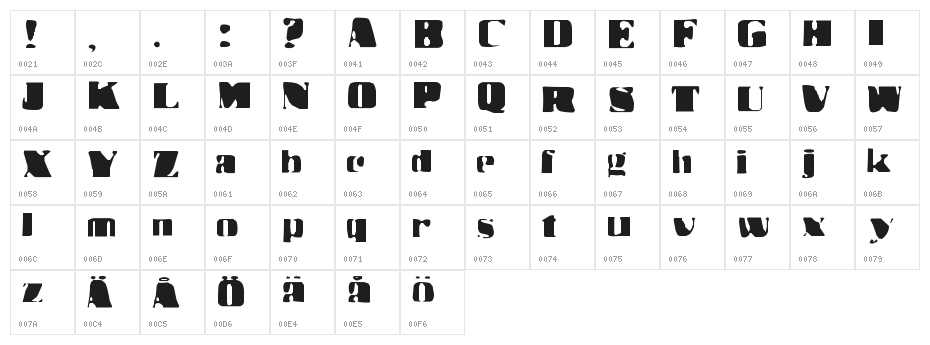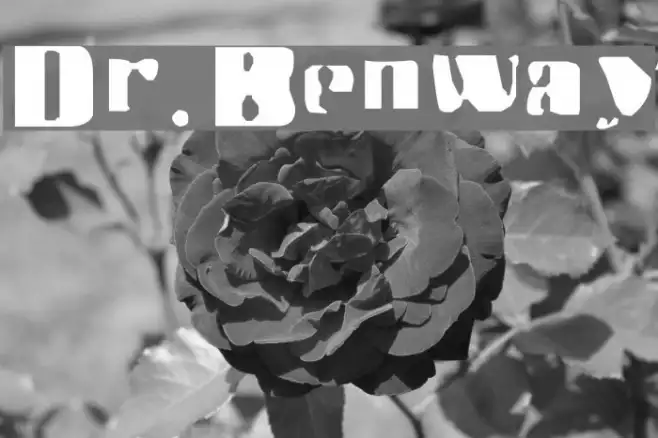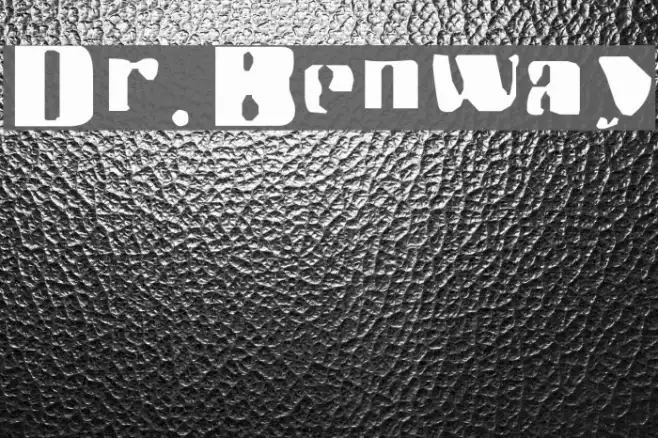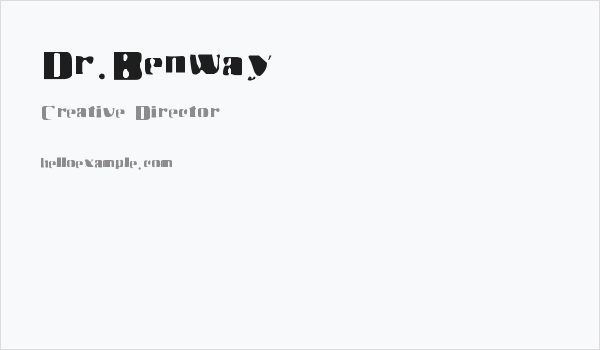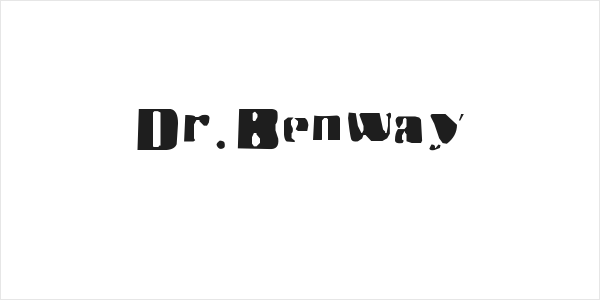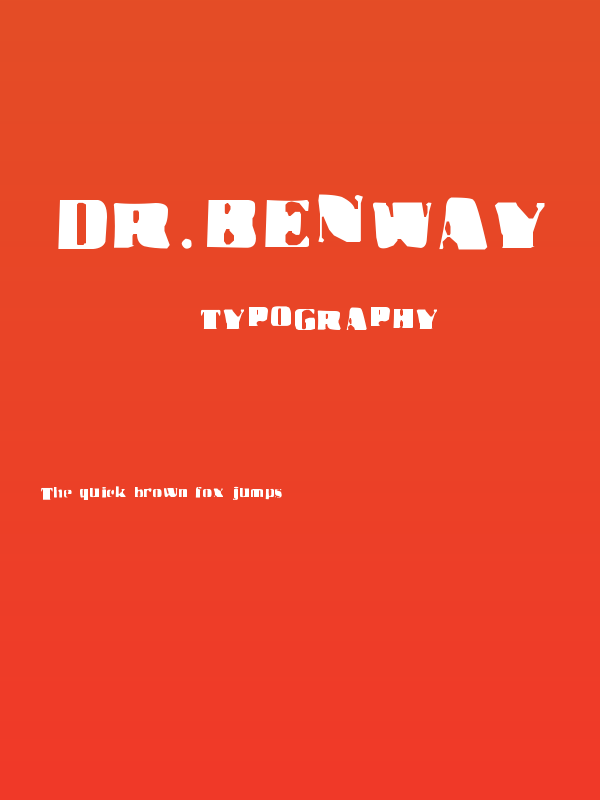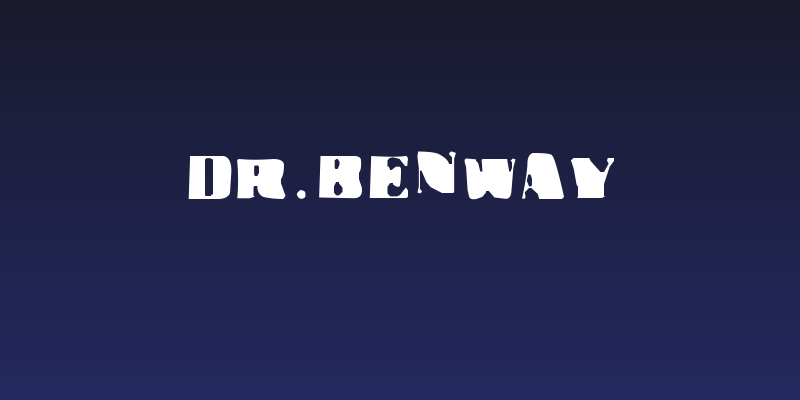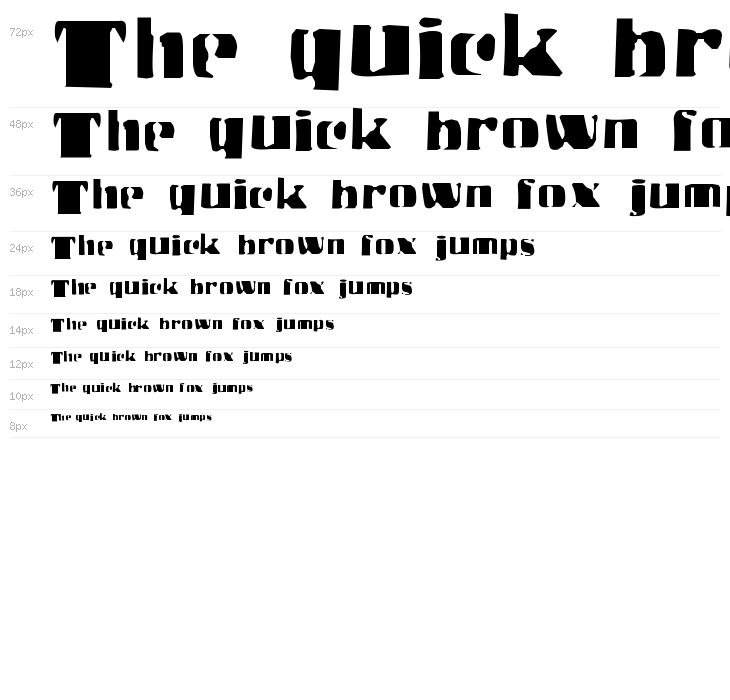
Dr.Benway Font
Dr.Benway Description
This font features a bold, stencil-like design with a strong, impactful presence. The characters are heavily stylized with cut-out sections, creating a rugged and industrial feel. The uppercase and lowercase letters maintain a consistent weight, emphasizing the boldness of the design. The numbers and special characters follow the same aesthetic, ensuring uniformity across all glyphs. This font's unique style makes it ideal for projects that require a strong visual impact.
| Overall Style | Industrial, Rugged |
| Proposed Projects | Ideal for posters, branding, and packaging design where a strong, impactful statement is needed. |